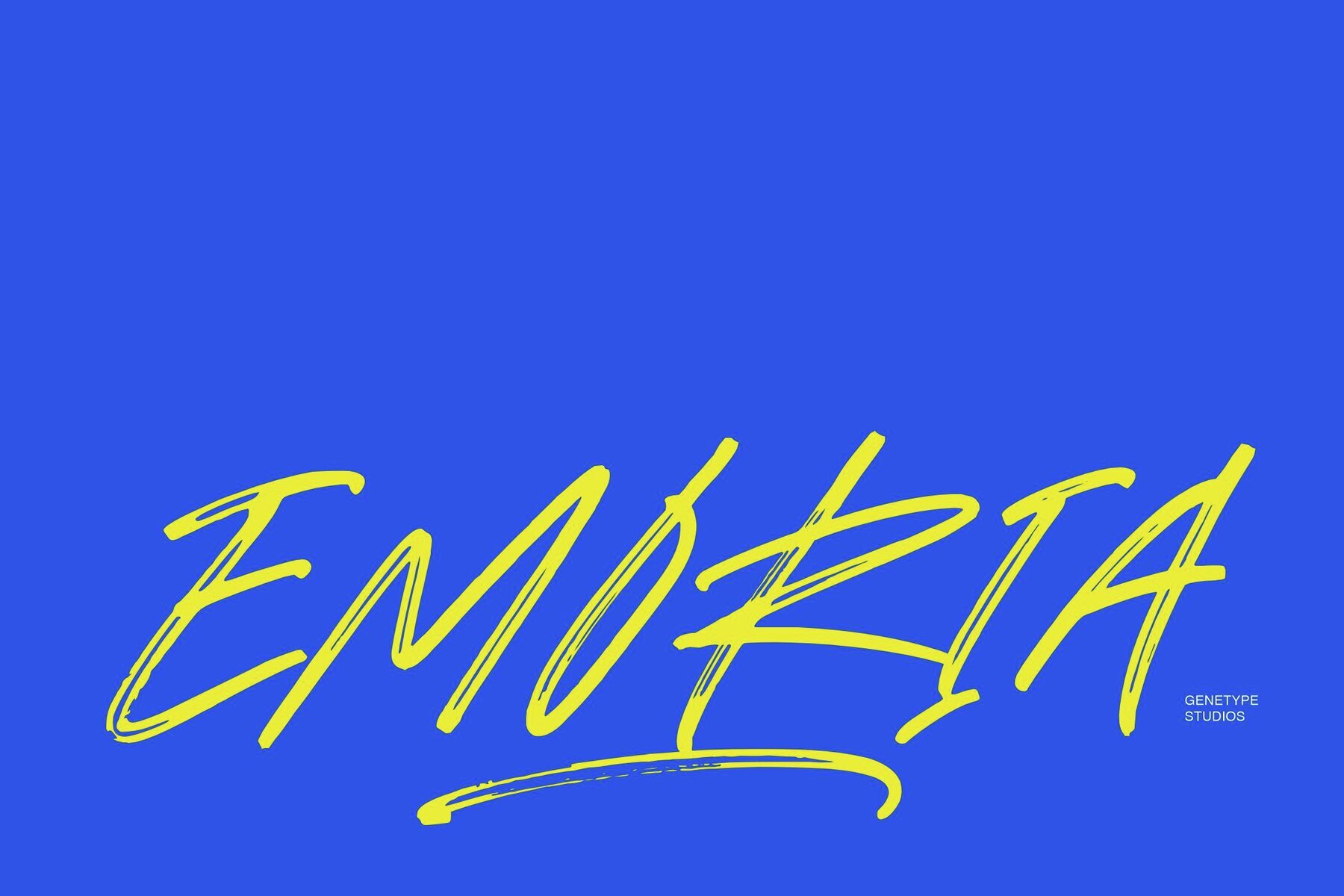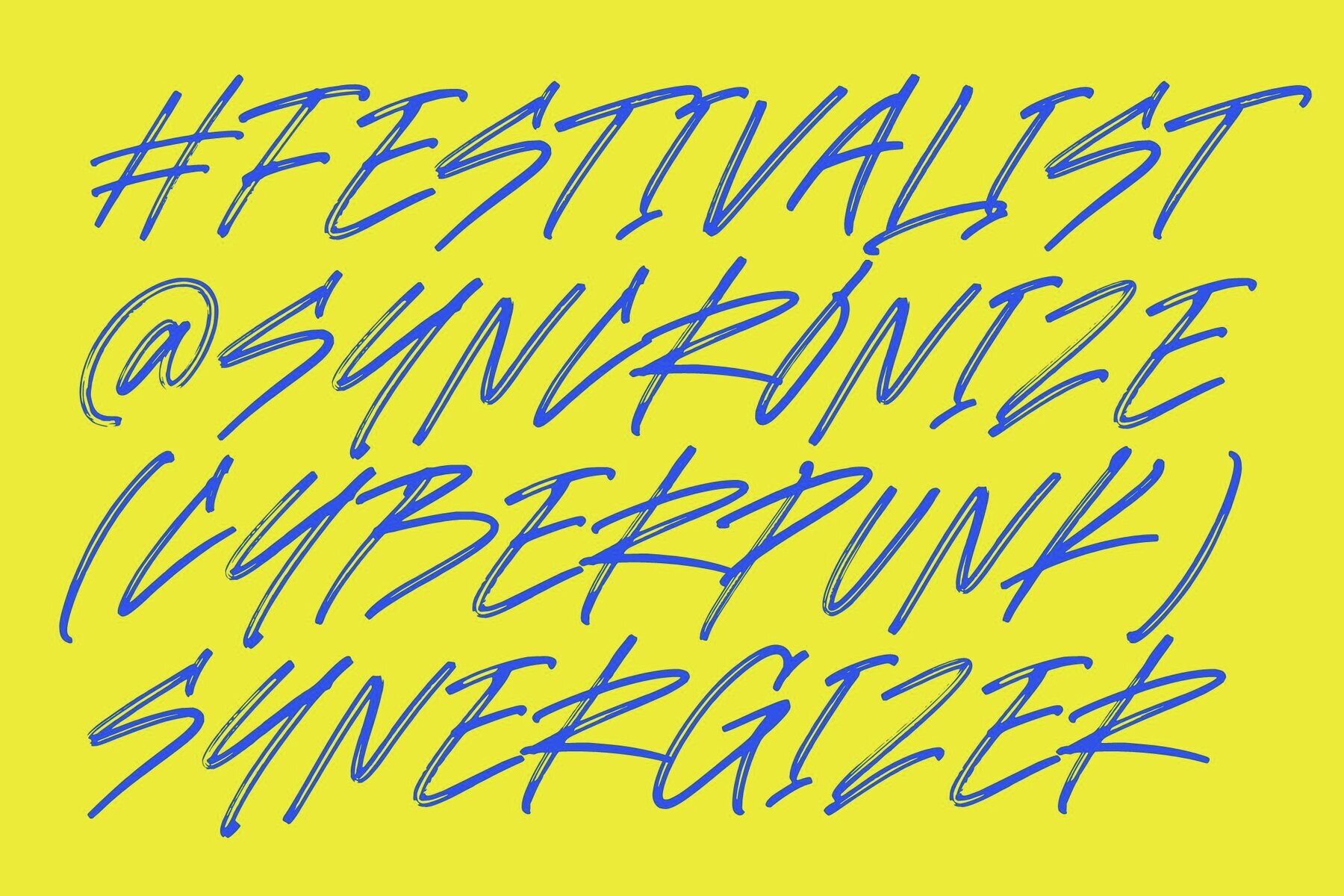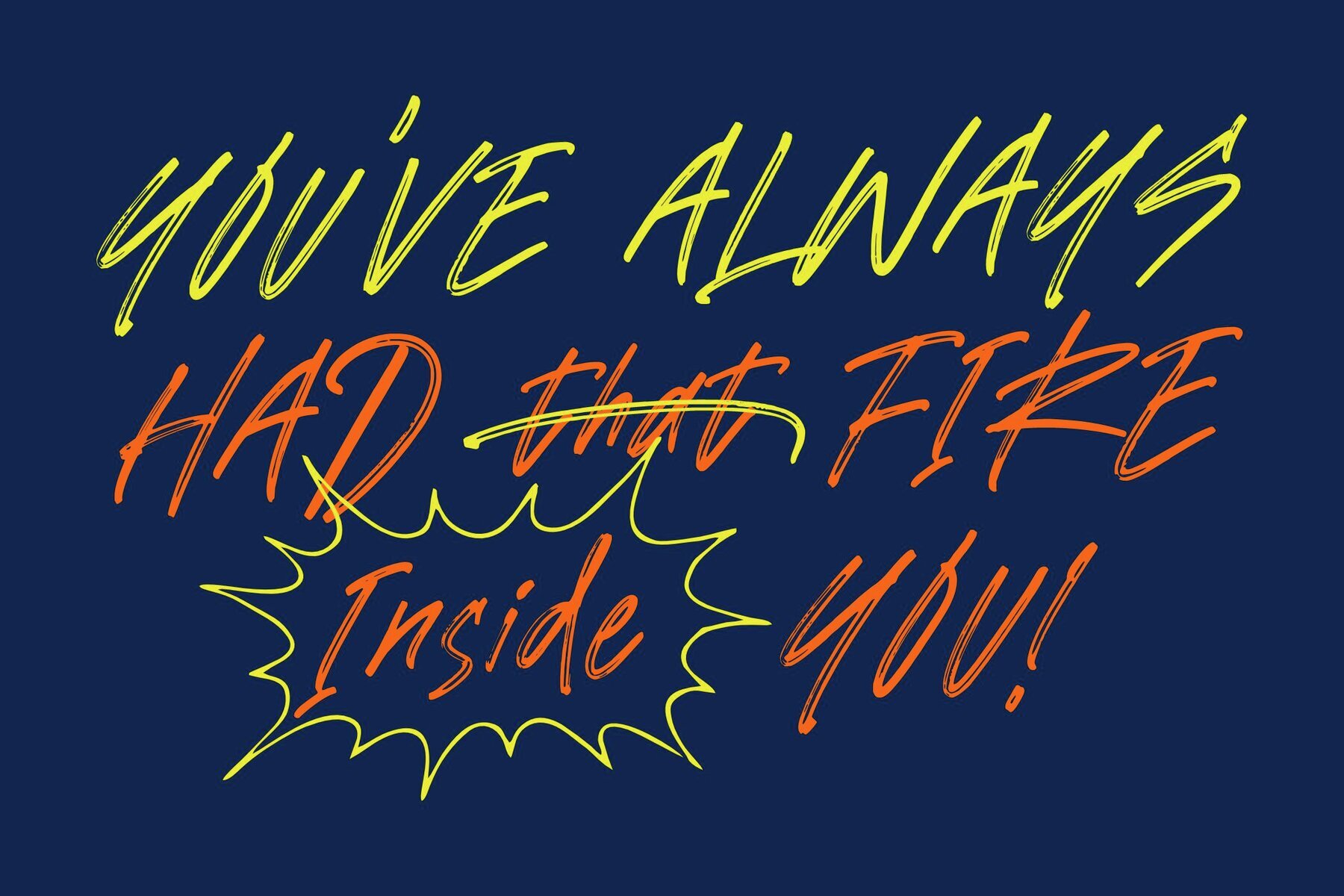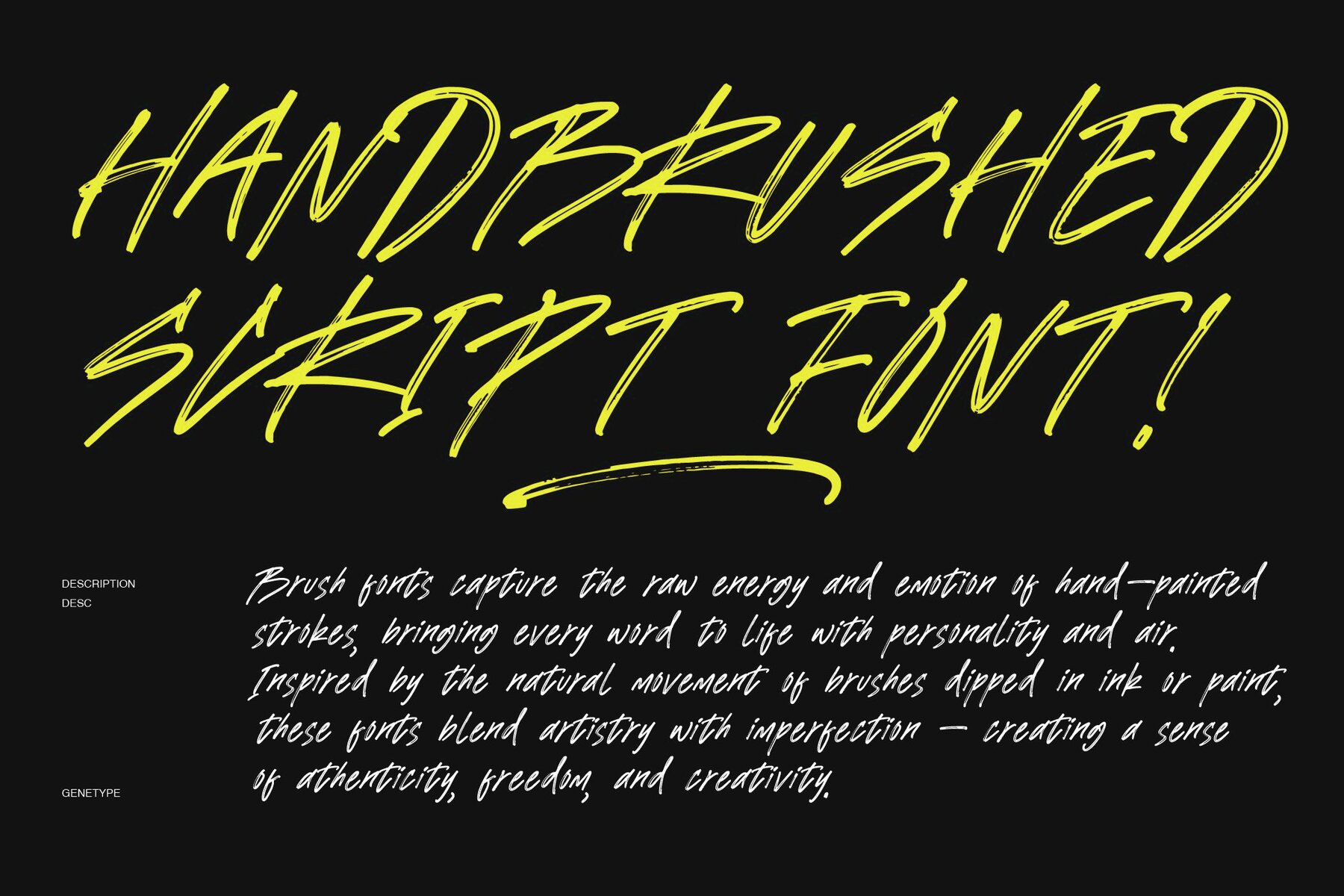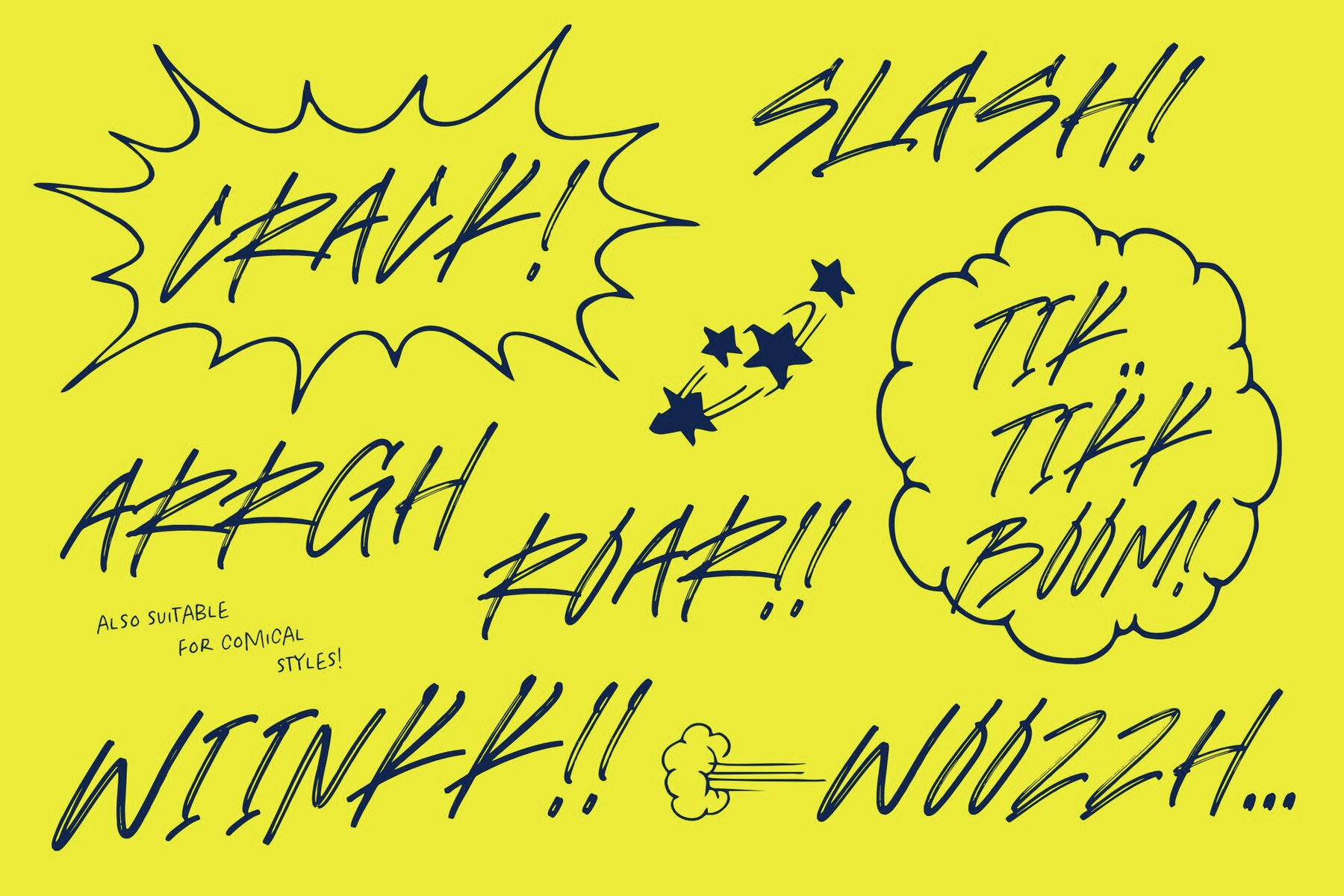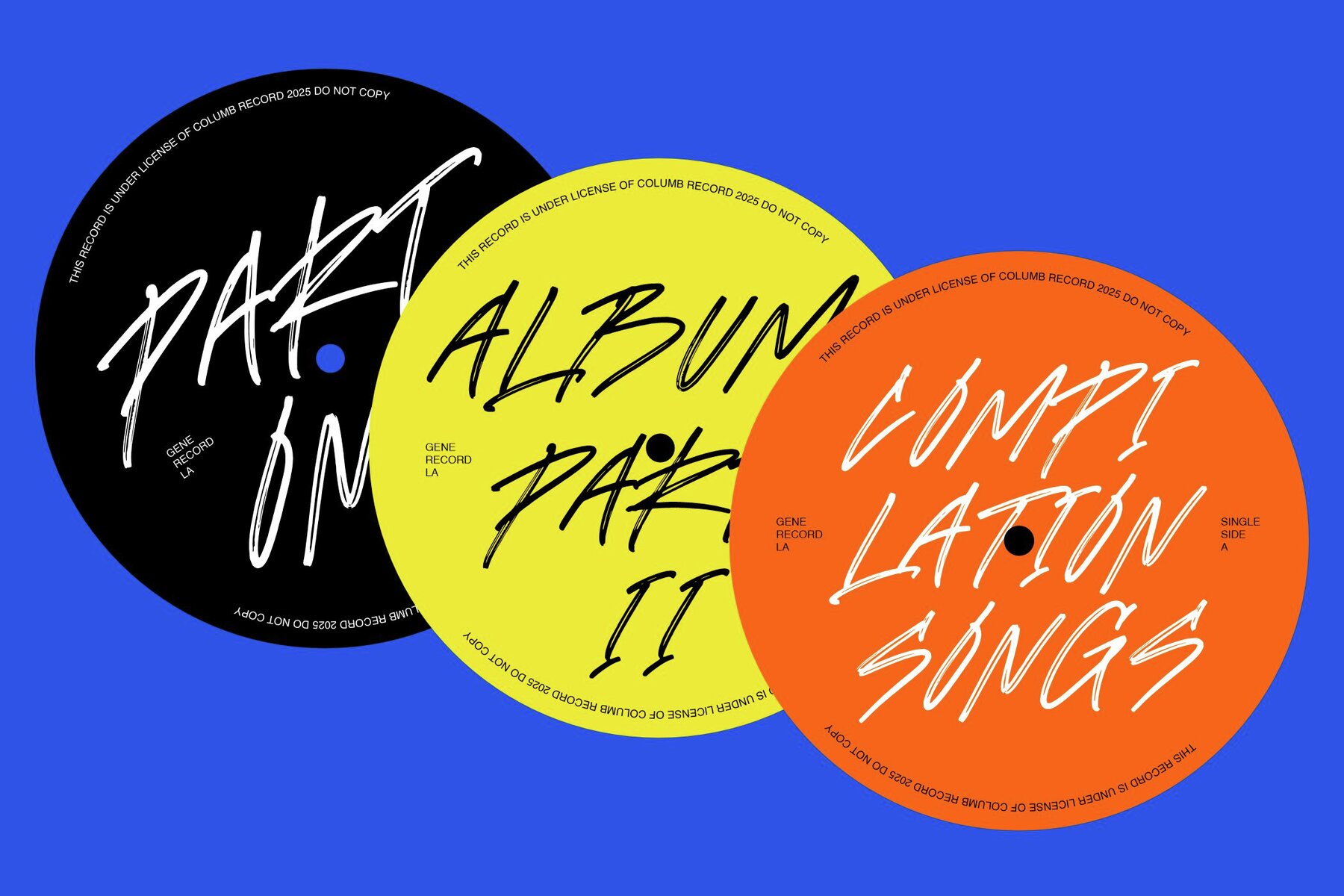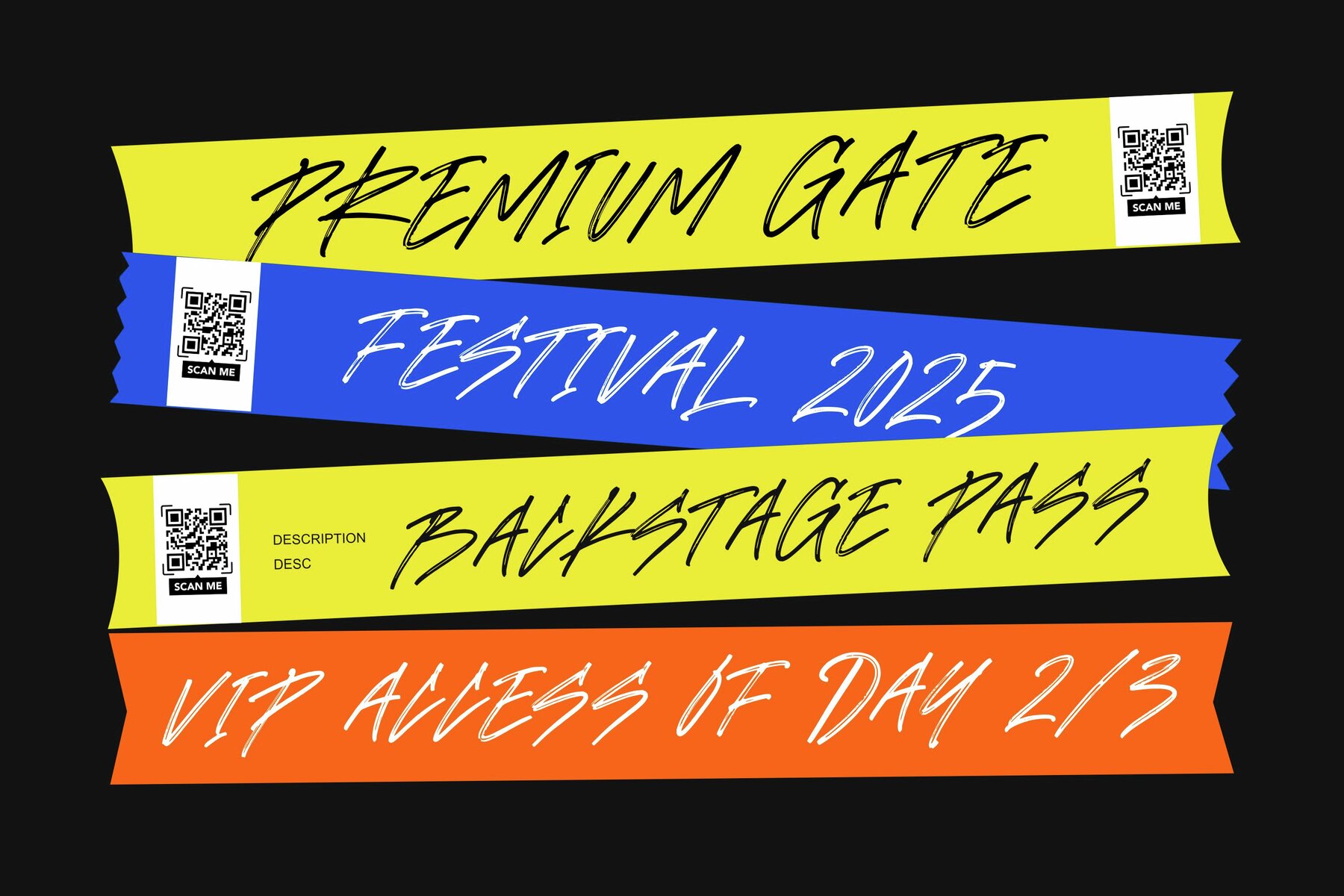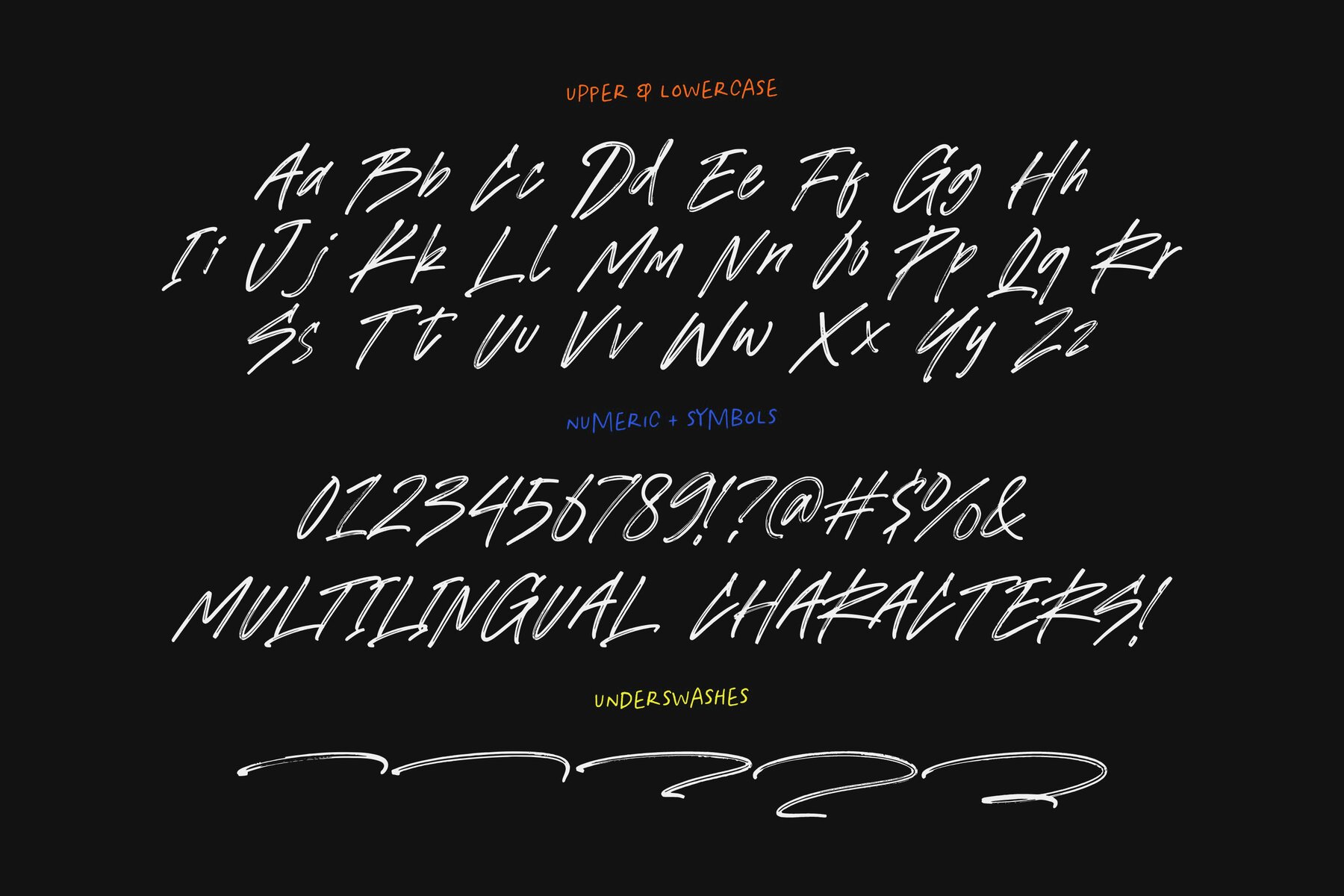
Emoria Font
Emoria Brush Regular
Emoria stands out with bold, hand-painted strokes that add genuine energy and character to your designs. This brush font features a raw, handcrafted style, giving typography a dynamic and spontaneous appearance. Every letter is distinct, with visible brush textures and natural imperfections that capture a sense of movement and individuality. Ideal for music posters, streetwear logos, film titles, editorial projects, branding, and social media graphics, Emoria offers a confident visual presence. Its lively forms bring intensity to festival branding or advertising, while supporting a range of typographic needs from captivating headlines to unmistakable logo designs.Emoria – Expressive Brush Script Font